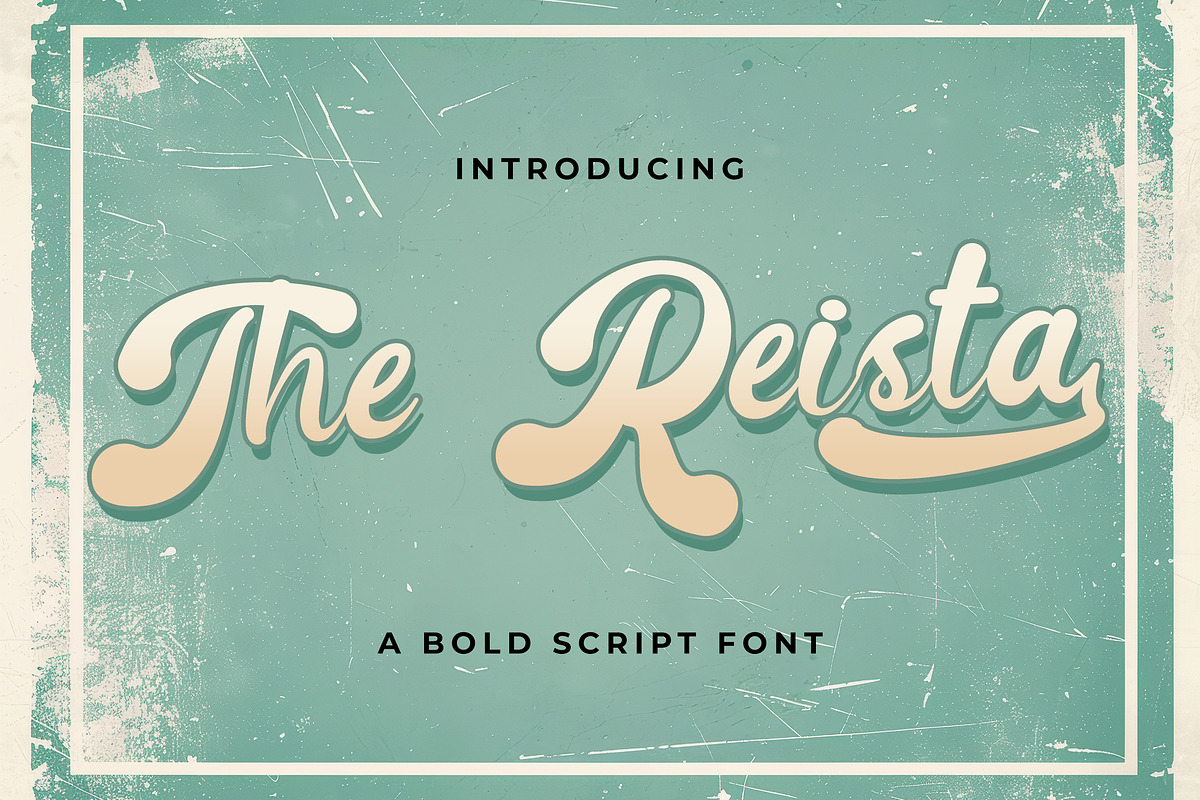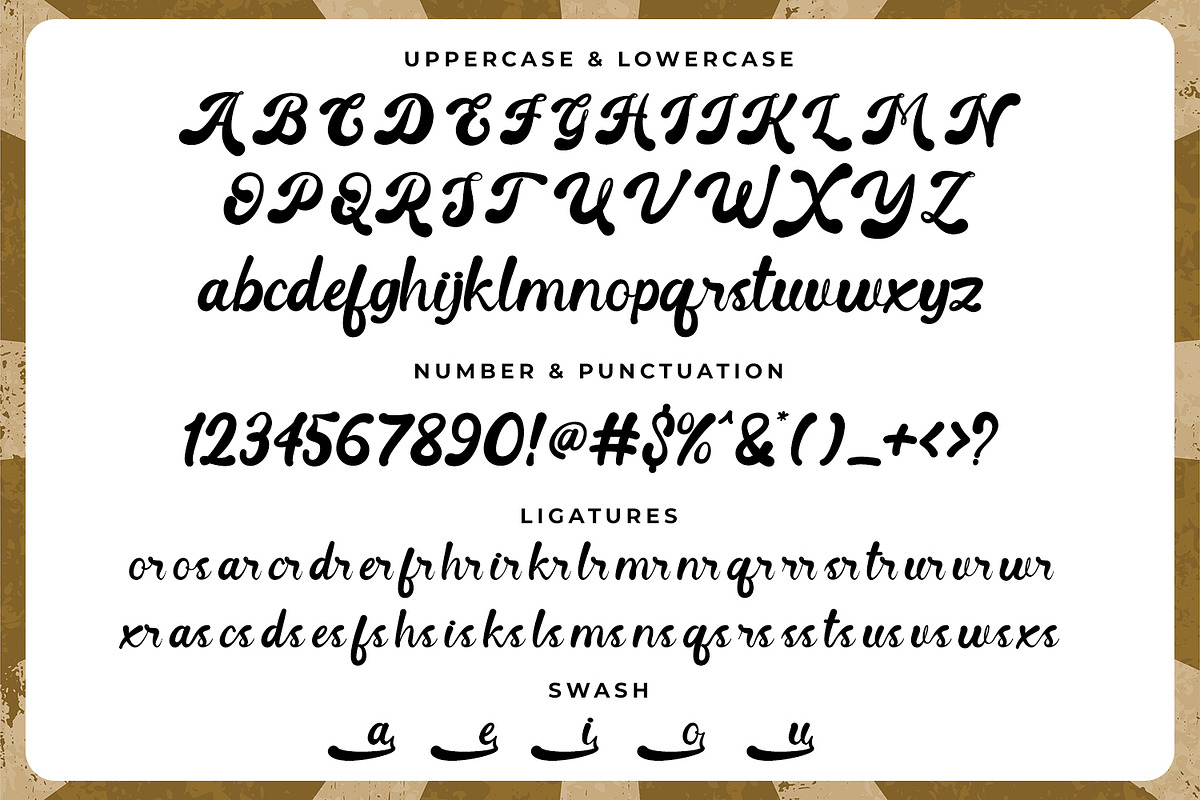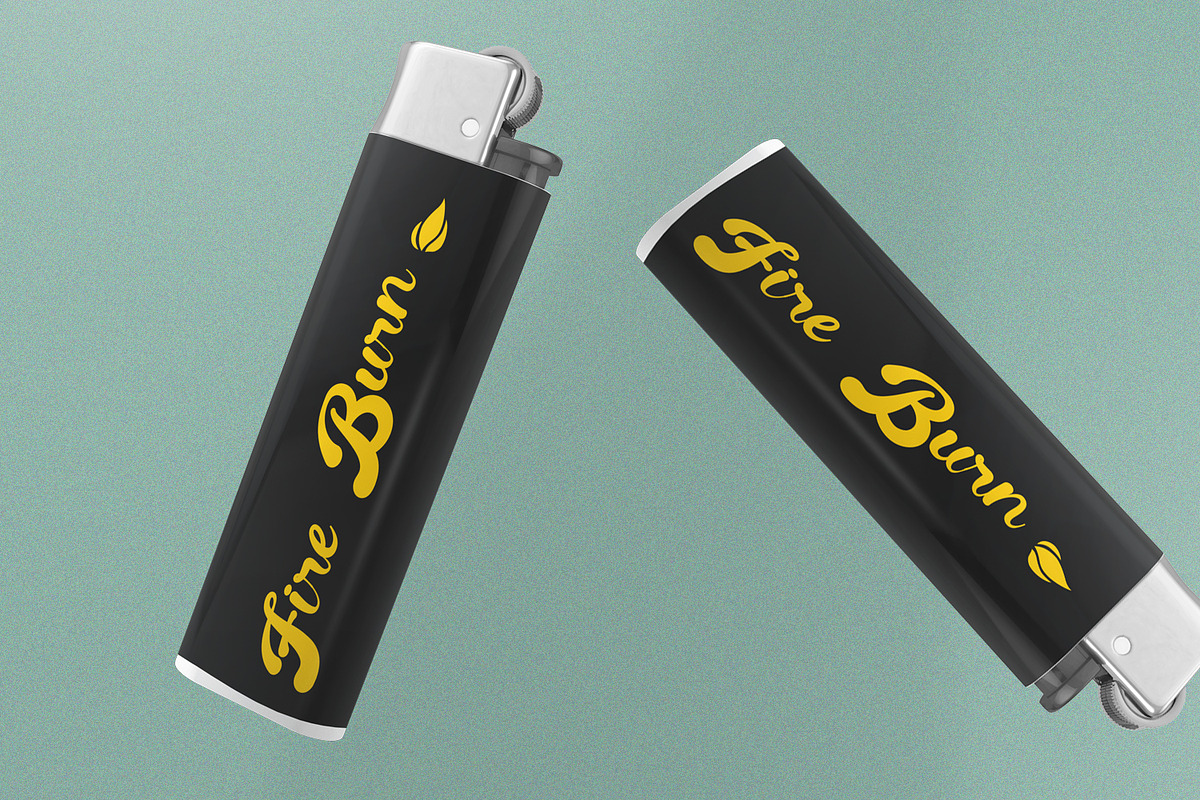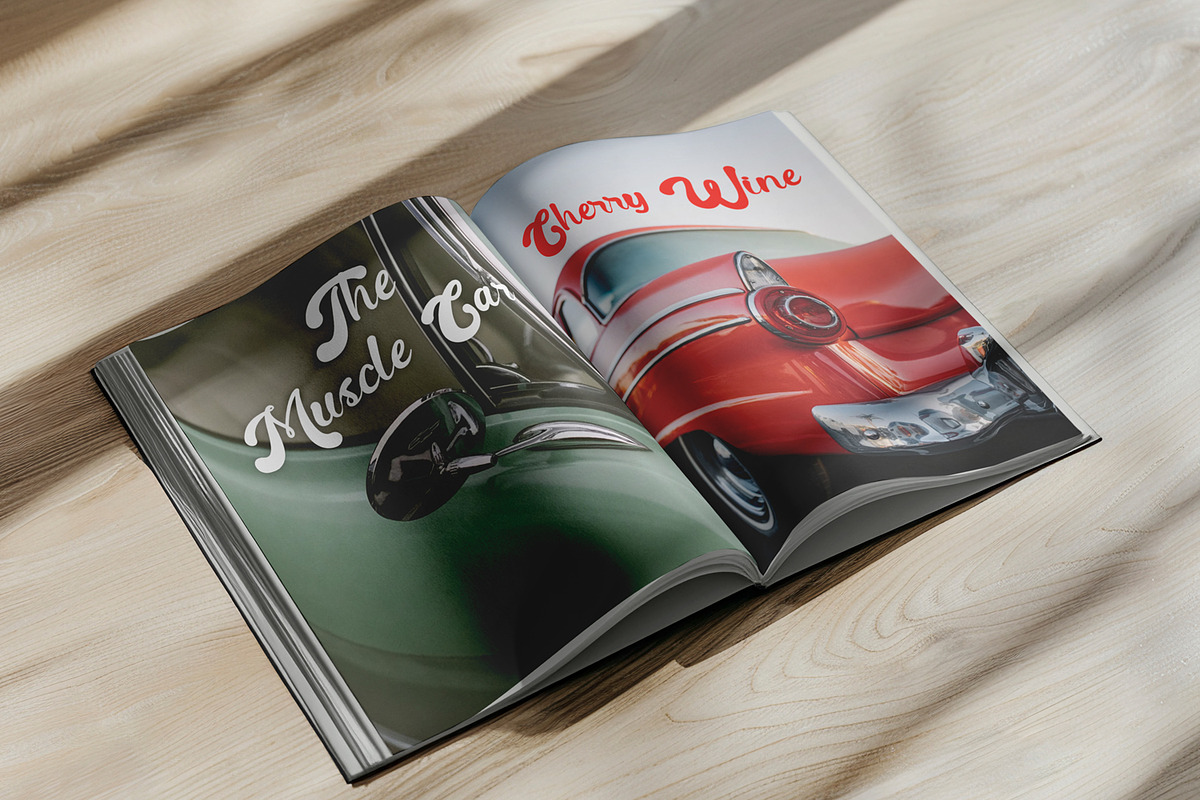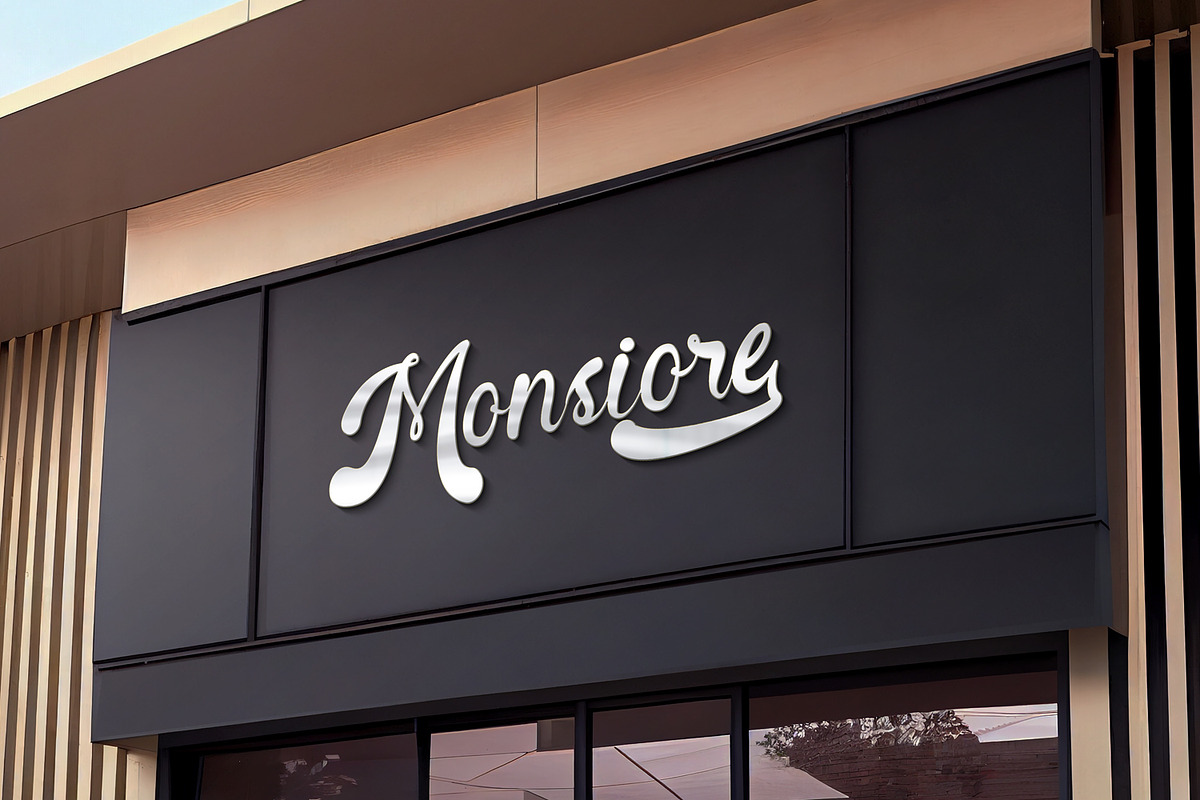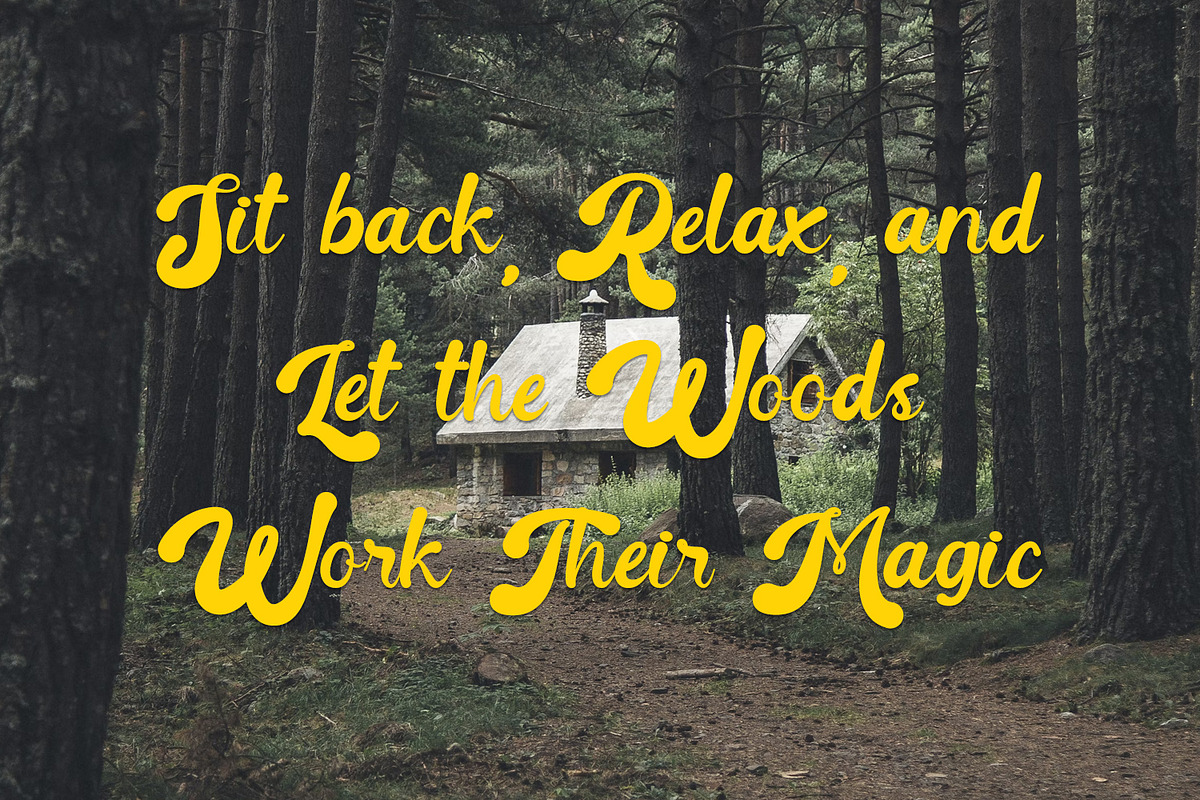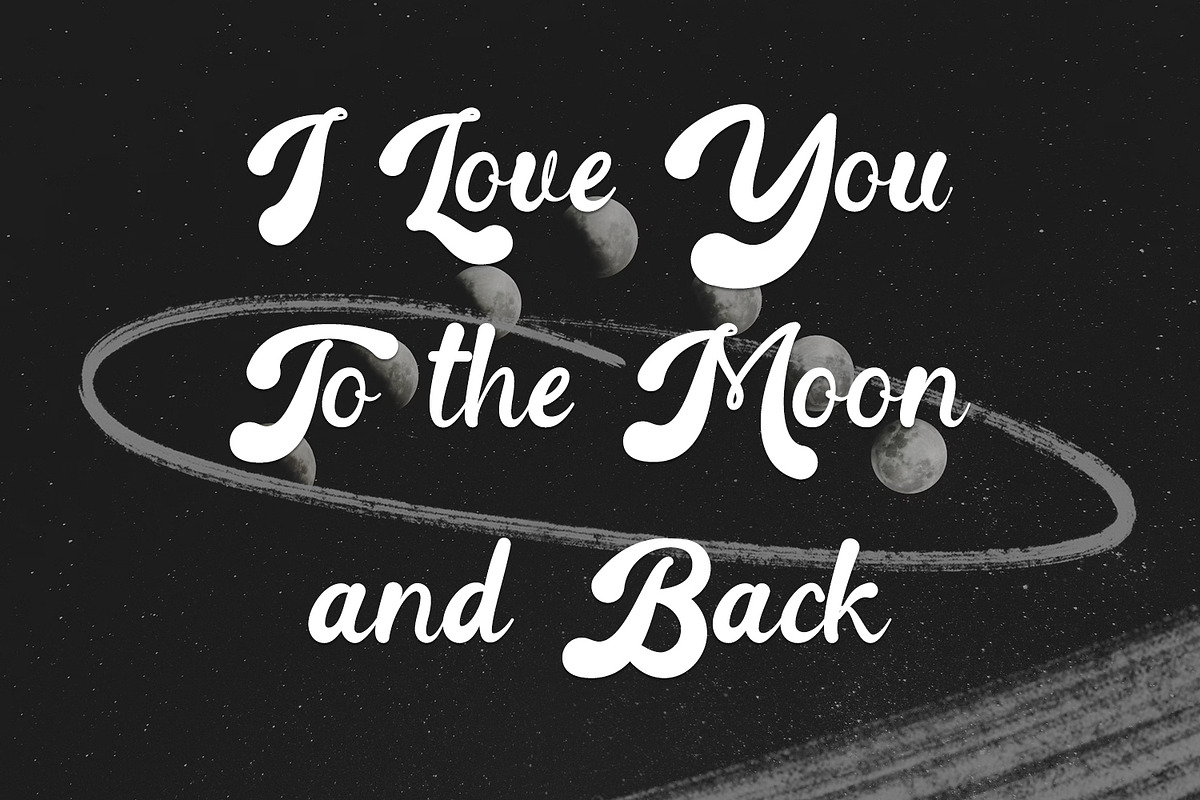
Reista – Bold Retro Script Font
Reista is a bold and expressive script font inspired by classic retro lettering with a warm, handcrafted feel. Designed with smooth curves, playful strokes, and confident weight, this font brings a nostalgic yet modern character that instantly stands out.
Reista works perfectly for quotes, posters, logos, packaging, signage, apparel designs, café branding, lifestyle products, and creative headlines. Its friendly and bold appearance makes it ideal for designs that want to feel personal, joyful, and eye-catching.
The font includes uppercase and lowercase letters, numbers, punctuation, ligatures, and swash alternates, giving designers flexibility for both digital and print projects. Reista is especially suitable for vintage-inspired designs, retro branding, and expressive typography compositions.
Reista is a great choice for designers looking for a bold script font with retro charm and strong visual personality.